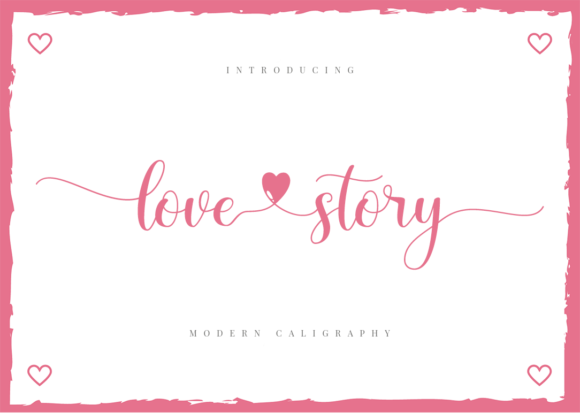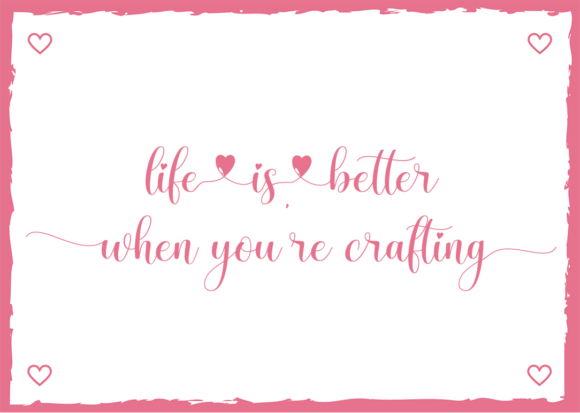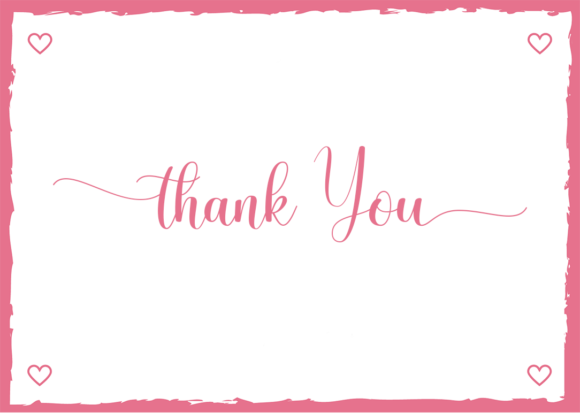
Love Story
About Love Story Font
Love Story is a sweet and romantic script font. Its flexibility and neat style will brighten up each of your designs. Love Story is PUA encoded which means you can access all of the glyphs and swashes with ease!